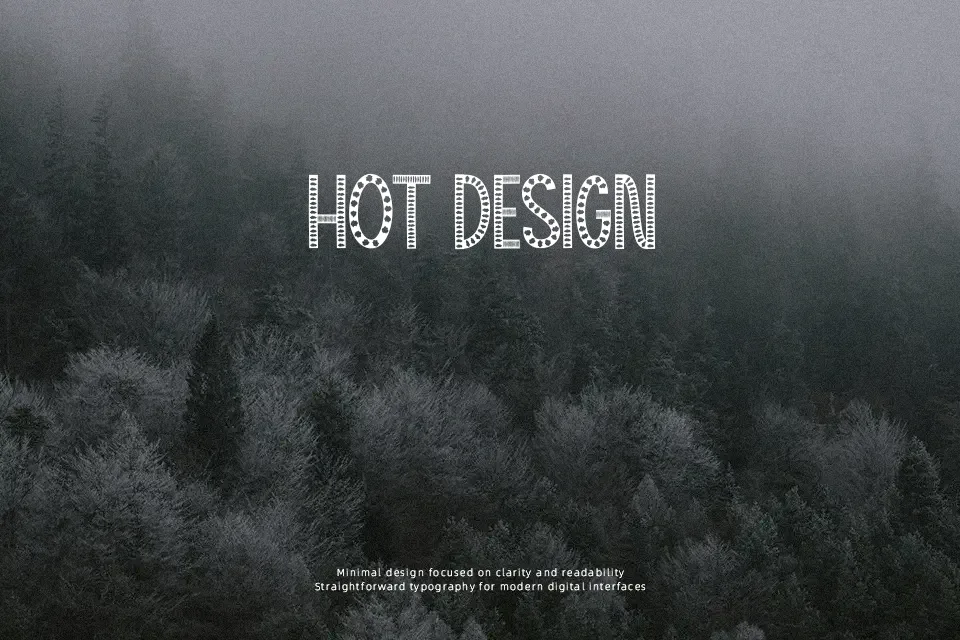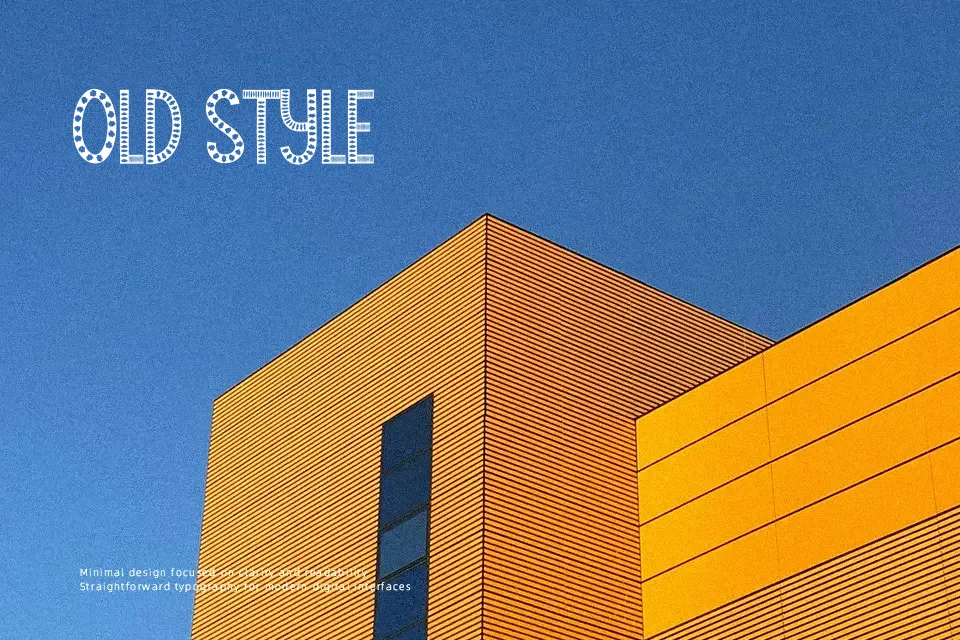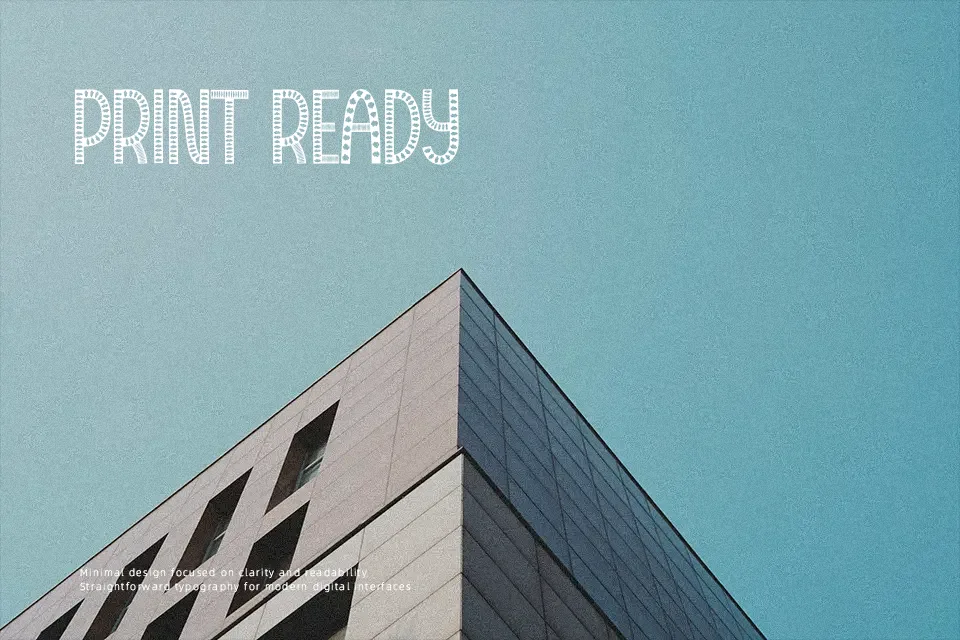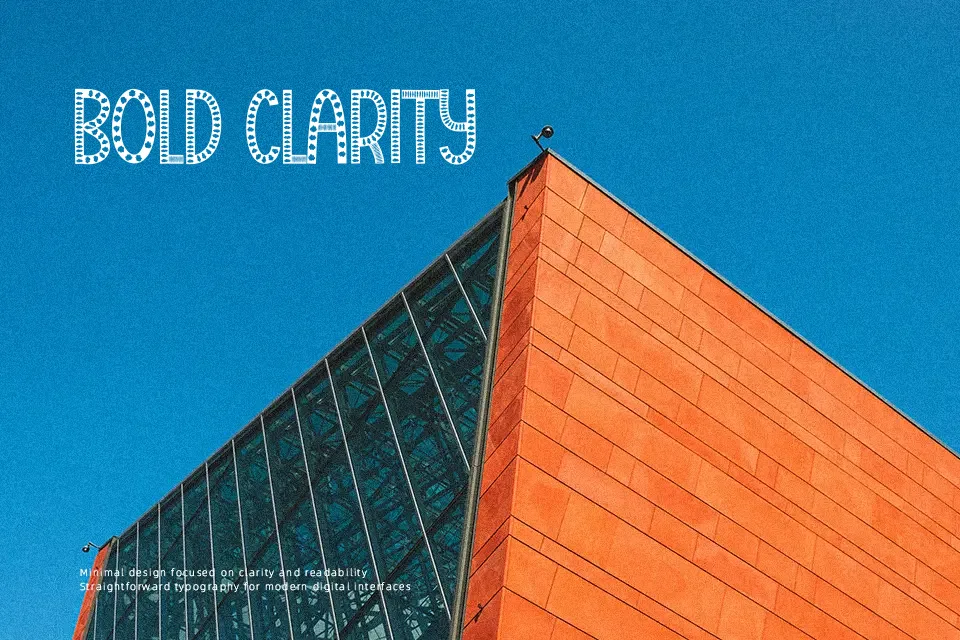
Christmas Cloud Font
Christmas Cloud Font features rounded contours, uneven playful weights, and decorative seasonal embellishments across its uppercase and lowercase letterforms. The typeface maintains relatively loose spacing to prevent ornate terminals from colliding, giving each glyph room to breathe in headline compositions. While the design delivers strong charm in holiday invitations, seasonal retail banners, and festive gift tags, the heavy ornamental details quickly degrade legibility at reduced scales. The letterforms remain easy to distinguish at large display sizes, but dense paragraphs suffer from visual clutter. Consequently, this typeface should be reserved for short, expressive titling rather than continuous reading.
Best For: holiday greeting cards, seasonal gift packaging, festive poster headlines, party invitations
Not Ideal For: long body text, mobile application interfaces, technical documentation, dense editorial layouts